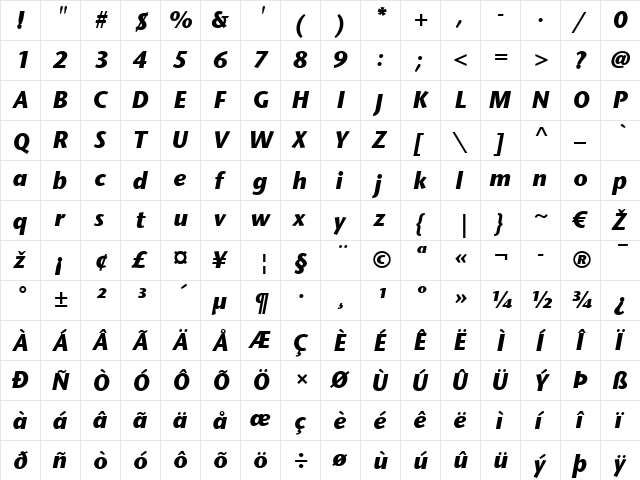
StoneSans LT Bold Italic
Design Context for StoneSans LT Bold Typeface
StoneSans LT Bold offers clean, dependable letterforms without strong stylistic allegiance, making it a practical choice for designers who need flexibility. The dynamic lean of this cut emphasises speed and emphasis in any layout. The heavy weight commands attention and anchors typographic hierarchies.
Pro Tip: Use StoneSans LT Bold for emphasis, pull quotes, and subheadings where its slanted energy can add rhythm to the layout.